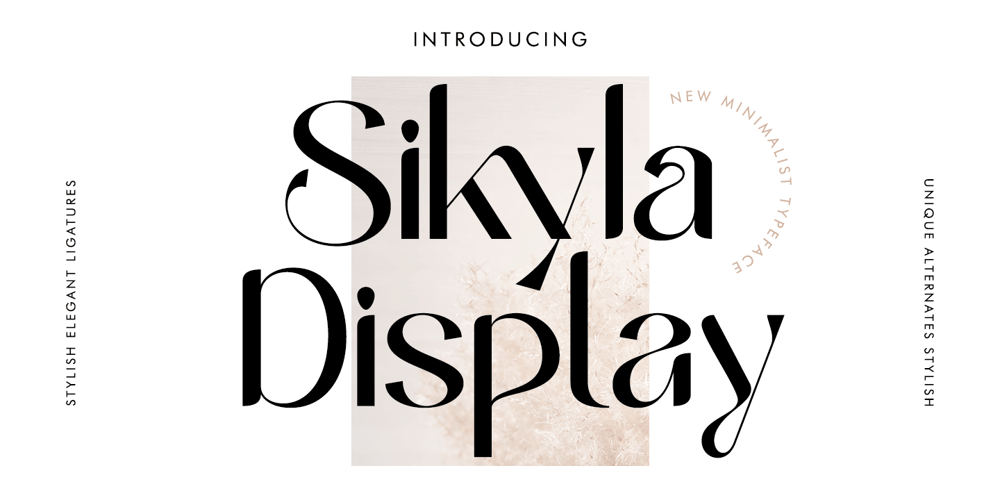
Sikyla Display Font Family was designed by Toni Irfandi and published by Tony Type Studio. Sikyla Display contains 1 styles and family package options. Sikyla Display is a very beautiful and unique Sans Serif font that has never existed, Sikyla Display font offers a variety of alternatives and very interesting ligatures used to design various displays.Sikyla Display also offers several font styles that we collect in one font, you can use according to the theme that is suitable for your design.